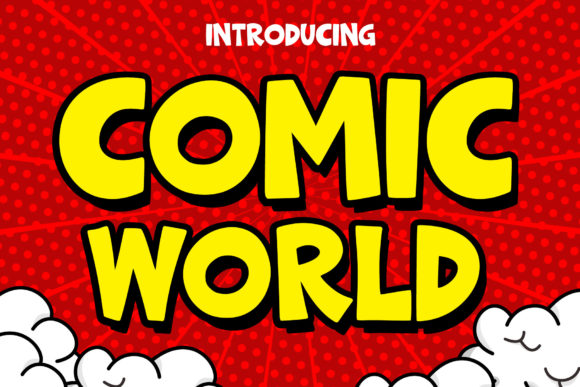
Are you looking for a font that will make your words pop? Look no further than Comic World Font, the Best Font For Wow! This vintage styled display font, created by Fox7, will take your titles and words to the next level with its cool and dramatic emphasis.
Comic World Font is the perfect addition to any font library, as it has the potential to enhance any creation. Whether you are creating a poster, logo, or social media graphic, this font will add a touch of retro flair that is sure to catch the eye of your audience.
With its bold and eye-catching design, Comic World Font is sure to make a lasting impression. It is ideal for anyone looking to add a little personality and style to their work. And, as a display font, it is perfect for headlines, titles, and other text that needs to stand out.